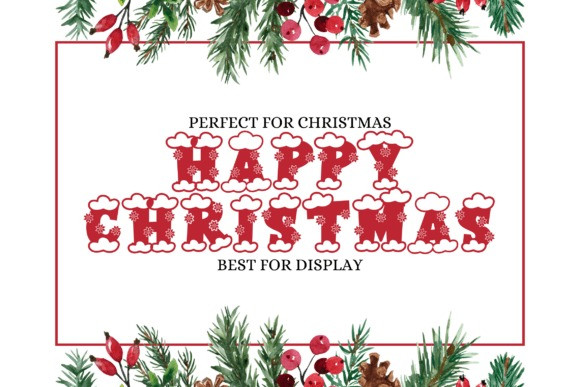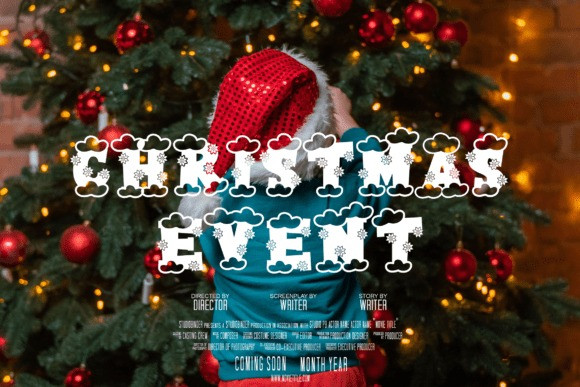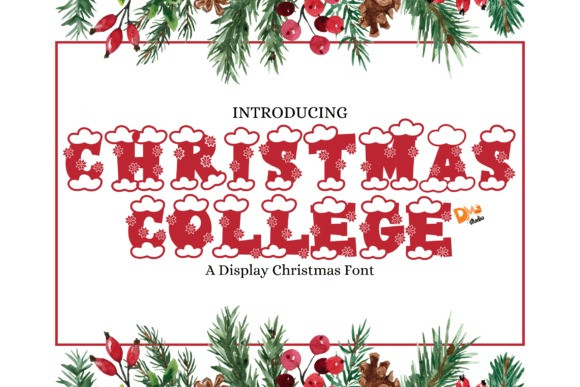
Christmas College Font
Christmas College Font Imbued with yuletide magic and classic collegiate charm, the Christmas College Font marries bold, varsity-style lettering with a delightful holiday twist. This font shines when incorporated in Christmas-themed clothing, heartwarming holiday cards, robust winter sports emblems, or vibrant festive event advertisements. Profuse with cheer and nostalgia, the Christmas College Font effortlessly blends spirit and style to infuse your design visions with the heartwarming essence of the season.